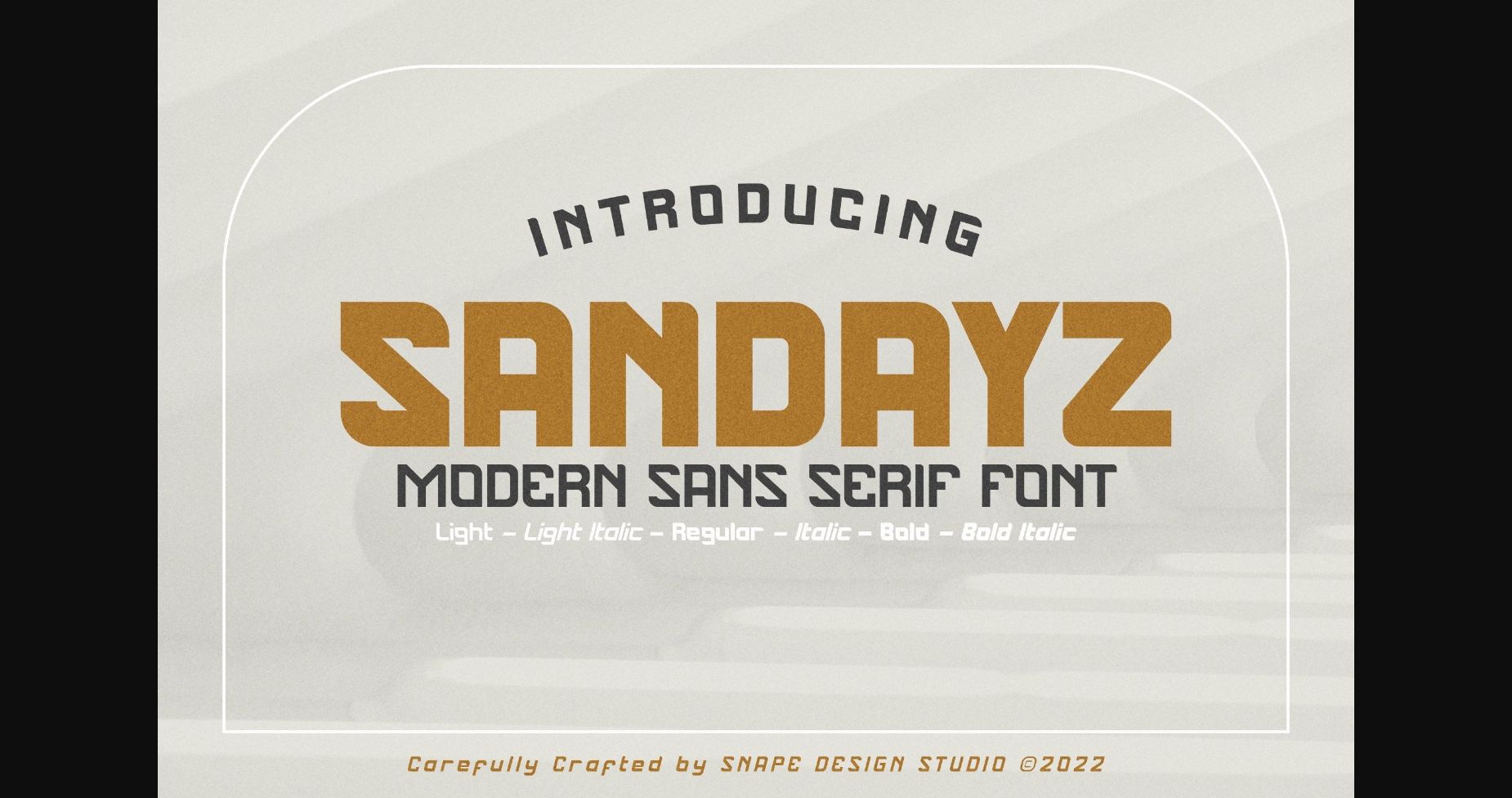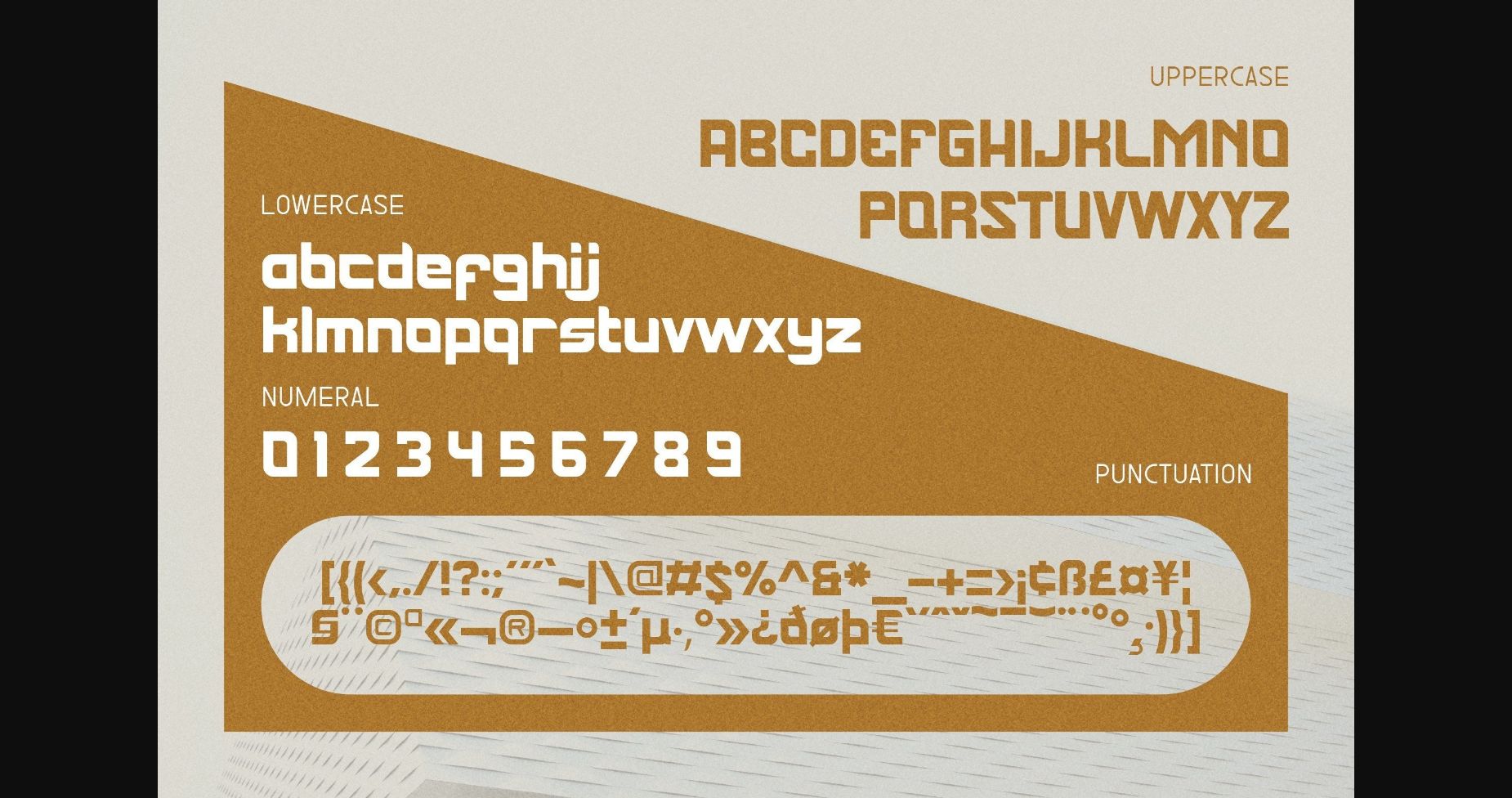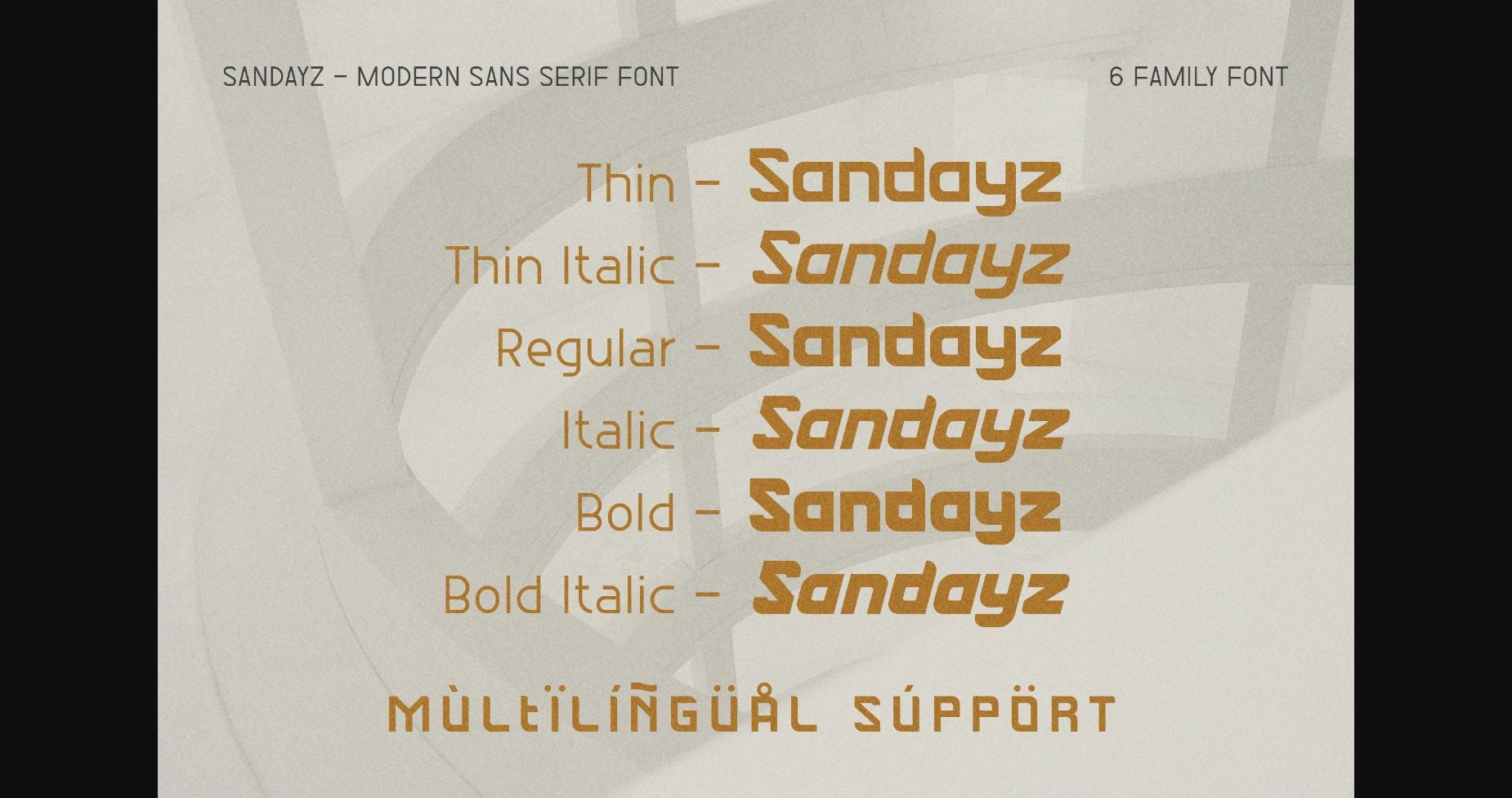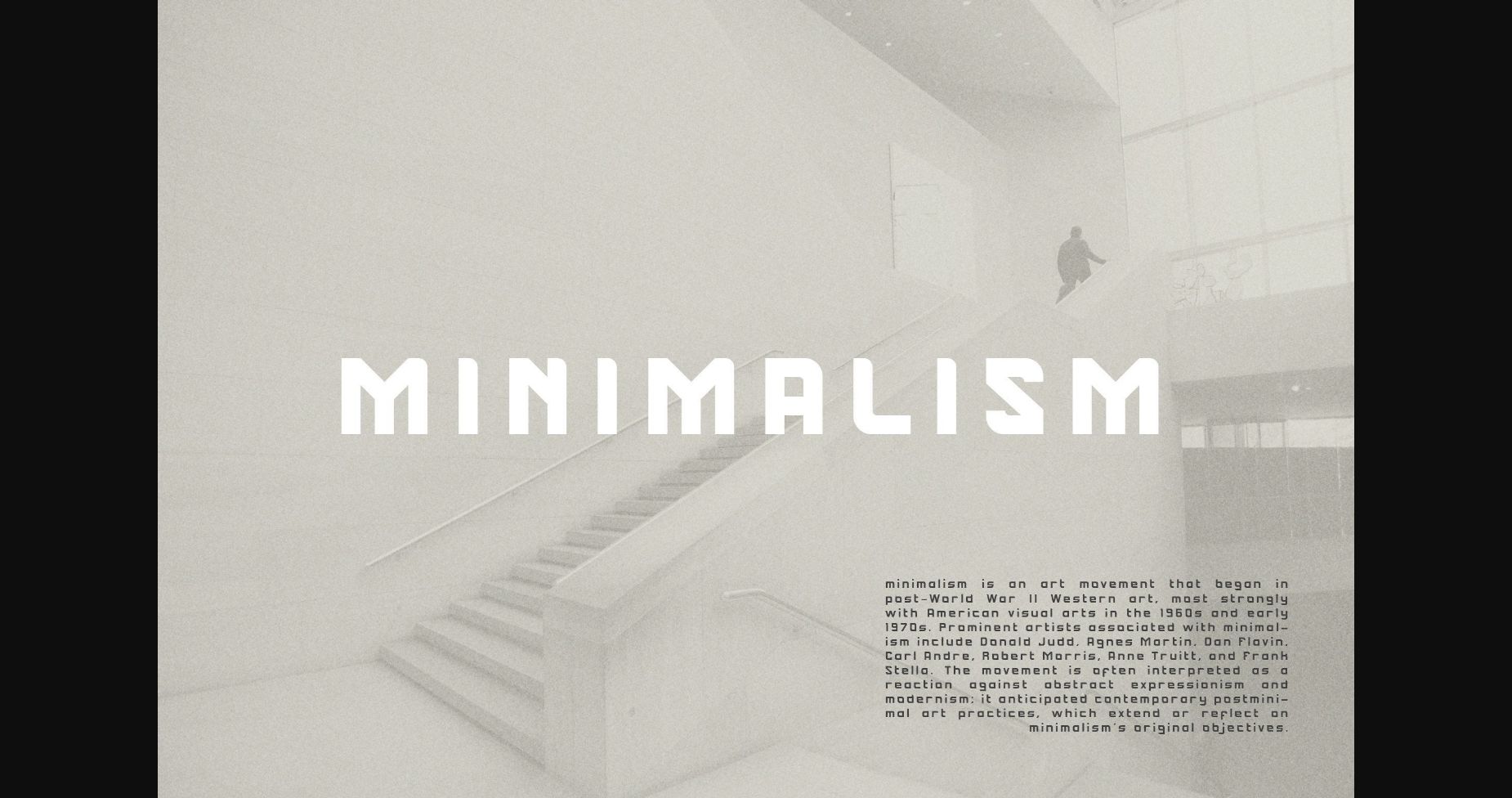
About Sandayz Font
Sandayz is a modern sans serif. The key to this all-caps family is simple straight geometric forms and modernized letterforms.
The modernized look makes this family great for presenting any content related to travel, history & culture in the present/modern way. This display family is perfect for headlines, posters, logos, branding projects, magazines, packaging, title, and many more projects. Add this font to your creative ideas and notice how it will make them stand out!